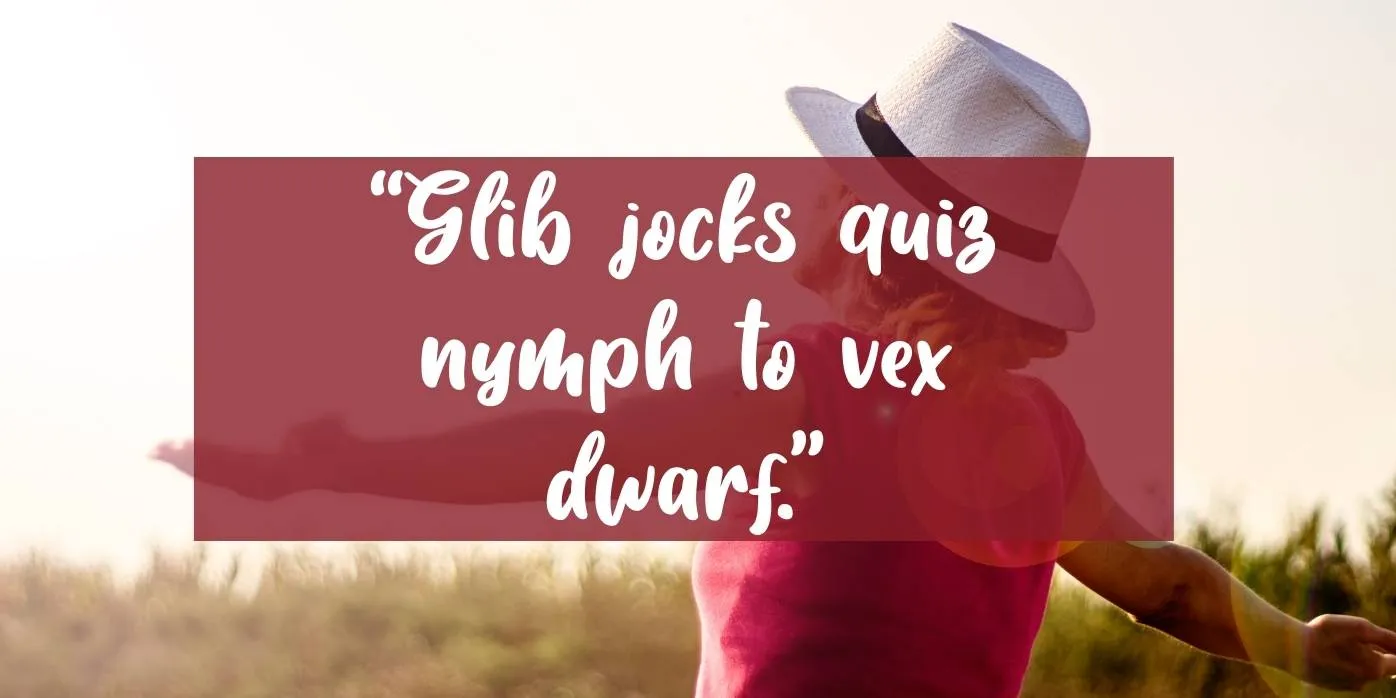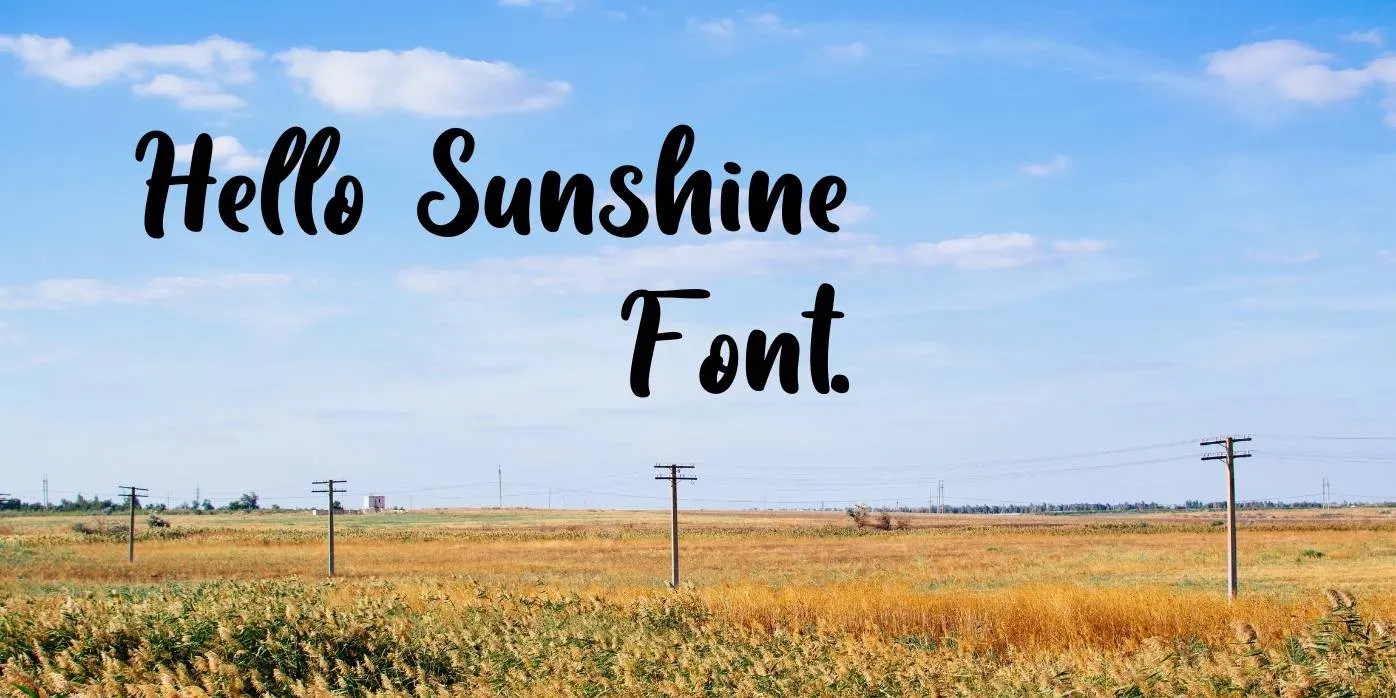
Hello Sunshine Font
Hello Sunshine Font was designed by the talented graphic designer Lauren Thompson who worked with the team at Hello Sunshines to design this gorgeous typeface. It is a great font to use as a Webfont for your projects. This awesome font belongs to the Script typeface. This marvelous Font is hand-drawn and hand-painted during various road trips through California, Colorado, Texas, Kentucky, and Georgia.
This stylish Fonts style brings the freshness and warmth of the sun to your design projects. It can add that sunny touch to any project such as logos, websites, wedding invitations cards, and so on. Bromello Font is alternative to this font family. This font family is best for Adobe Photoshop, and CSS.
The results of this font are accurate and flawless.